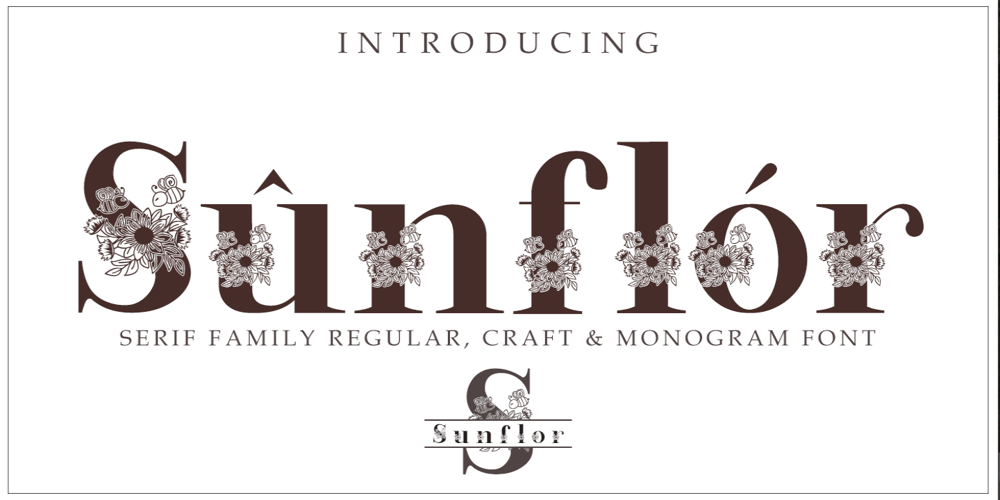
Sunflor
Sunflor font
Sunflor Font Family was designed by Muhammad Yoni and published by YonTypeStudio Co. Sunflor contains 3 styles and family package options. Introducing the elegant display serif fontsvery suitable for the use of nature-themed logos, for wedding invitations, print projects, and posters, magazinesand much more